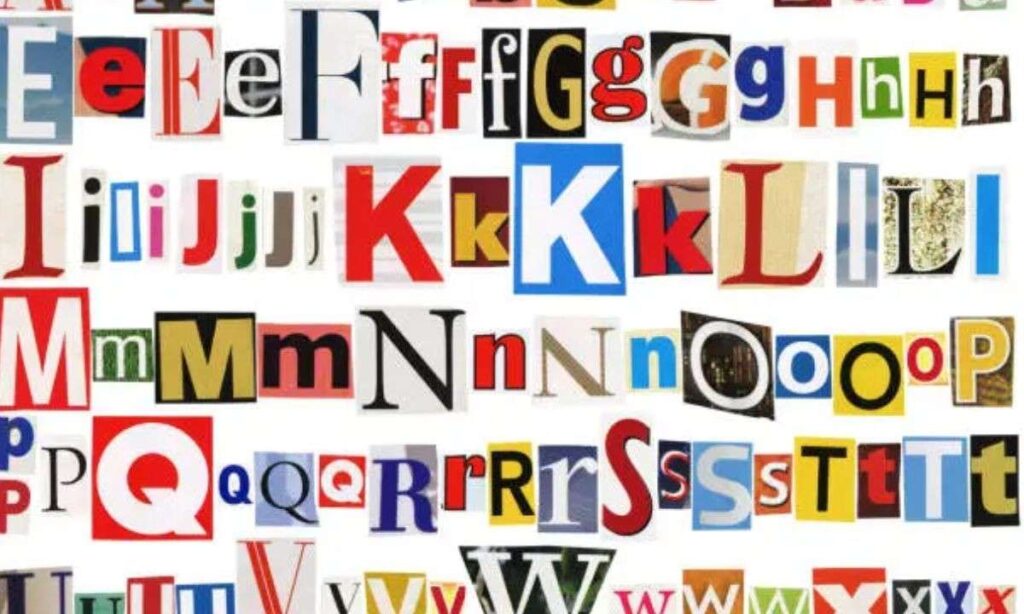
Different Font Styles Generator โ€“ ๐“’๐“ธ๐“น๐”‚ & ๐“Ÿ๐“ช๐“ผ๐“ฝ๐“ฎ Free
Different font styles help you transform ordinary text into visually appealing designs for social media, messaging apps, gaming usernames, and online profiles. With Unicode-based font generators, you can create bold, italic, script, gothic, bubble, monospace, and many other text styles without installing custom fonts.
Whether you want to personalize your Instagram bio, create a unique gaming name, or make your WhatsApp status more attractive, different font styles provide a quick and simple solution.
What Are Different Font Styles?
Different Font Styles
Different font styles are decorative versions of standard text. Most online font generators use Unicode characters to create the appearance of different fonts while keeping the original text readable.
Examples:
Font StyleExample
StandardDifferent Font Styles
Bold๐——๐—ถ๐—ณ๐—ณ๐—ฒ๐—ฟ๐—ฒ๐—ป๐˜ ๐—™๐—ผ๐—ป๐˜ ๐—ฆ๐˜๐˜†๐—น๐—ฒ๐˜€
Italic๐˜‹๐˜ช๐˜ง๐˜ง๐˜ฆ๐˜ณ๐˜ฆ๐˜ฏ๐˜ต ๐˜๐˜ฐ๐˜ฏ๐˜ต ๐˜š๐˜ต๐˜บ๐˜ญ๐˜ฆ๐˜ด
Script๐’Ÿ๐’พ๐’ป๐’ป๐‘’๐“‡๐‘’๐“ƒ๐“‰ ๐น๐‘œ๐“ƒ๐“‰ ๐’ฎ๐“‰๐“Ž๐“๐‘’๐“ˆ
Gothic๐•ฏ๐–Ž๐–‹๐–‹๐–Š๐–—๐–Š๐–“๐–™ ๐•ฑ๐–”๐–“๐–™ ๐•พ๐–™๐–ž๐–‘๐–Š๐–˜
Bubbleโ’นโ“˜โ“•โ“•โ“”โ“กโ“”โ“โ“ฃ โ’ปโ“žโ“โ“ฃ โ“ˆโ“ฃโ“จโ“›โ“”โ“ข
Monospace๐™ณ๐š’๐š๐š๐šŽ๐š›๐šŽ๐š—๐š ๐™ต๐š˜๐š—๐š ๐š‚๐š๐šข๐š•๐šŽ๐šœ
Small CapsDษชา“า“แด‡ส€แด‡ษดแด› Fแดษดแด› Sแด›สสŸแด‡s
Each style changes the appearance of text while preserving its meaning.
How Do Font Style Generators Work?
A font style generator converts ordinary letters into Unicode alternatives.
The process is straightforward:
1. Enter your text.
2. The generator analyzes each character.
3. Unicode equivalents are generated.
4. Browse dozens of font styles.
5. Copy your preferred version.
6. Paste it into a supported platform.
Because Unicode is a universal character standard, the generated text works on many modern websites and applications.
Why Do People Use Different Font Styles?
Different font styles help create unique and memorable text.
Common uses include:
• Instagram display names
• Instagram bios
• WhatsApp status updates
• Facebook posts
• TikTok bios
• Snapchat display names
• Discord nicknames
• Gaming usernames
• YouTube channel names
• Online signatures
• Blog headings
• Creative invitations
Stylish typography makes short text easier to notice.
Popular Different Font Styles
Bold Font Style
Bold fonts increase visibility and emphasize important words.
๐——๐—ถ๐—ด๐—ถ๐˜๐—ฎ๐—น ๐—–๐—ฟ๐—ฒ๐—ฎ๐˜๐—ผ๐—ฟ
Best for:
• Headlines
• Business profiles
• Announcements
• Promotions
Italic Font Style
Italic fonts create subtle emphasis.
๐˜‹๐˜ช๐˜จ๐˜ช๐˜ต๐˜ข๐˜ญ ๐˜Š๐˜ณ๐˜ฆ๐˜ข๐˜ต๐˜ฐ๐˜ณ
Suitable for:
• Quotes
• Captions
• Messages
• Personal bios
Script Font Style
Script fonts resemble elegant handwriting.
๐’Ÿ๐’พ๐‘”๐’พ๐“‰๐’ถ๐“ ๐’ž๐“‡๐‘’๐’ถ๐“‰๐‘œ๐“‡
Popular among:
• Fashion influencers
• Wedding planners
• Beauty creators
• Lifestyle bloggers
Gothic Font Style
Gothic fonts create a dramatic appearance.
๐•ฏ๐–Ž๐–Œ๐–Ž๐–™๐–†๐–‘ ๐•ฎ๐–—๐–Š๐–†๐–™๐–”๐–—
Common uses:
• Gaming
• Music
• Fantasy content
• Clan names
Bubble Font Style
Bubble fonts create a playful design.
โ’นโ“˜โ“–โ“˜โ“ฃโ“โ“› โ’ธโ“กโ“”โ“โ“ฃโ“žโ“ก
Suitable for:
• Fun profiles
• Hobby accounts
• Children’s content
Monospace Font Style
Monospace fonts create a technical appearance.
๐™ณ๐š’๐š๐š’๐š๐šŠ๐š• ๐™ฒ๐š›๐šŽ๐šŠ๐š๐š˜๐š›
Popular among:
• Developers
• Technology pages
• Coding communities
Small Caps Font Style
Small capital letters create a clean and modern appearance.
Dษชษขษชแด›แด€สŸ Cส€แด‡แด€แด›แดส€
Best for:
• Professional branding
• Photography
• Educational content
Where Can You Use Different Font Styles?
Unicode text is supported by many online platforms.
Instagram
Use stylish fonts in:
• Profile names
• Bios
• Captions
• Stories
• Comments
WhatsApp
Decorative text works in:
• Chats
• Status updates
• Profile names
• Group names
Facebook
Unicode supports:
• Posts
• Comments
• Page descriptions
• Bios
TikTok
Creators use stylish fonts in:
• Display names
• Bios
• Video captions
Snapchat
Use decorative fonts for:
• Display names
So go ahead and experiment with bold, script, gothic, bubble, or any style that matches your vibe. Just remember to keep readability in mind, stay consistent with your chosen style, and test it across different devices before you commit. With the right font style, your profile, captions, and messages can truly reflect who you are โ€” one stylish character at a time!